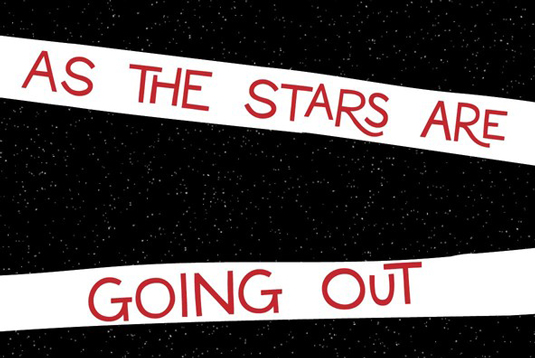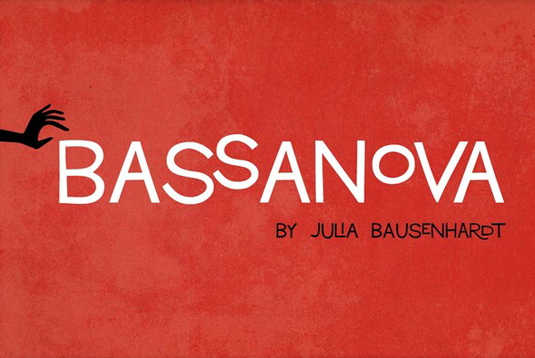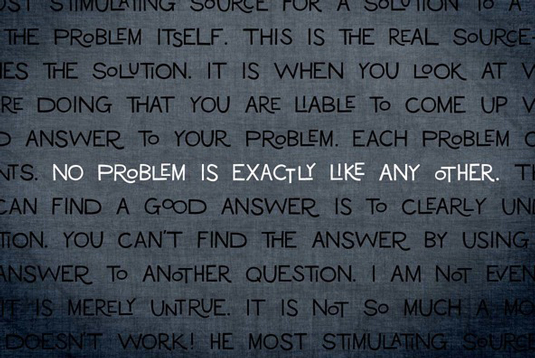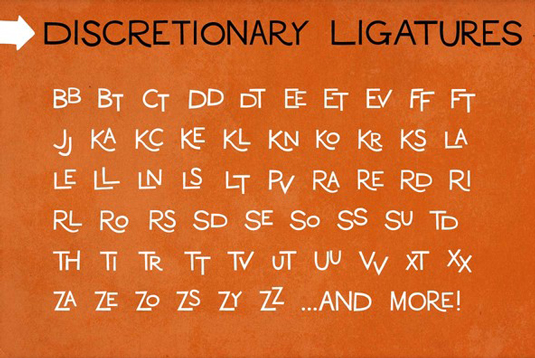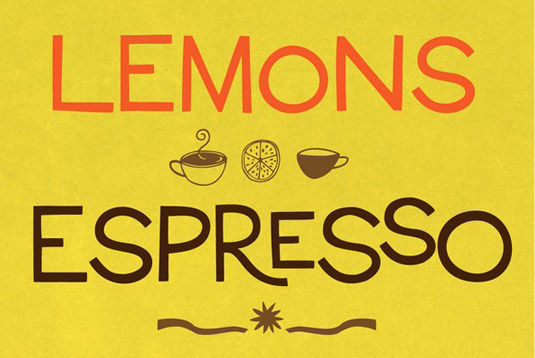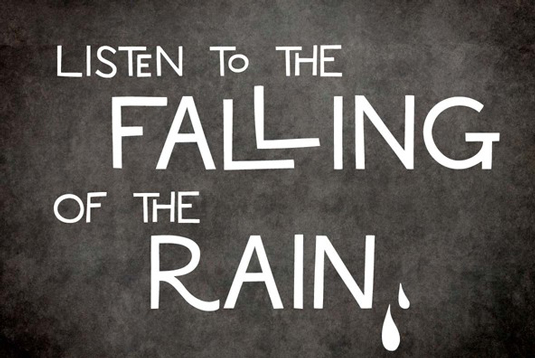
Font of the day: Bassanova
Bassanova by Julia Bausenhardt
You'd have to have been hiding under a rock for the last few decades to not recognise whose work influenced this design. A dynamic display font created by type designer Julia Bausenhardt, Bassanova was inspired by none other than legendary graphic designer Saul Bass and the lettering on his Love in the Afternoon poster. "The font captures the minimalistic, yet very distinct look that is so typical for his designs," Bausenhardt comments.